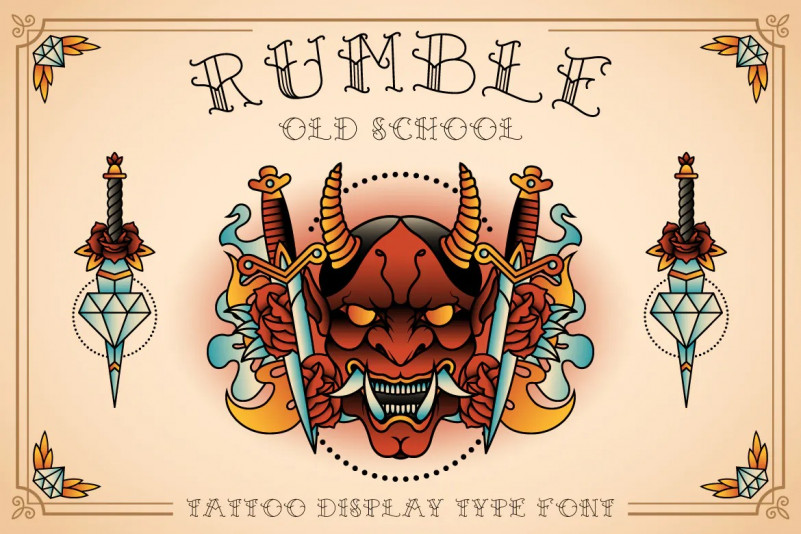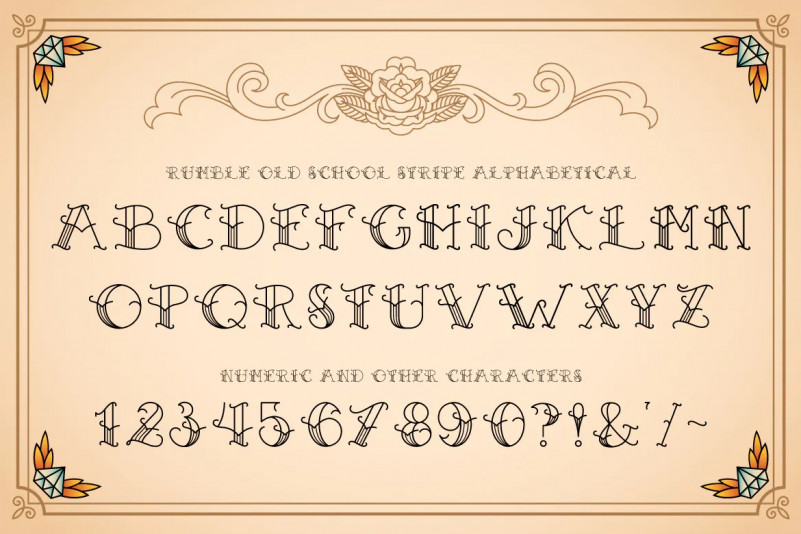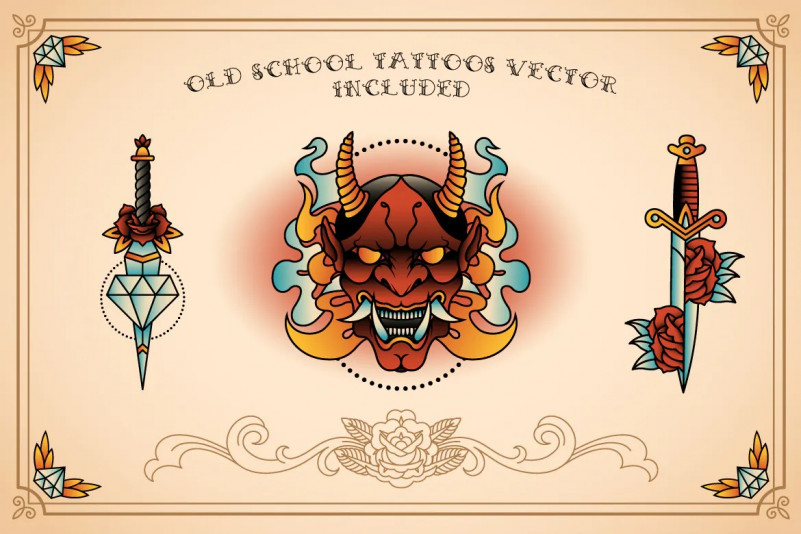
Rumble Old School Font
Rumble Old School tattoo-type display font made in two types, regular and stripe type. both look cool and fit with your retro or vintage concept art. This set contains old school tattoo vector too, a very beautiful piece of American retro tattoos. Enjoy!